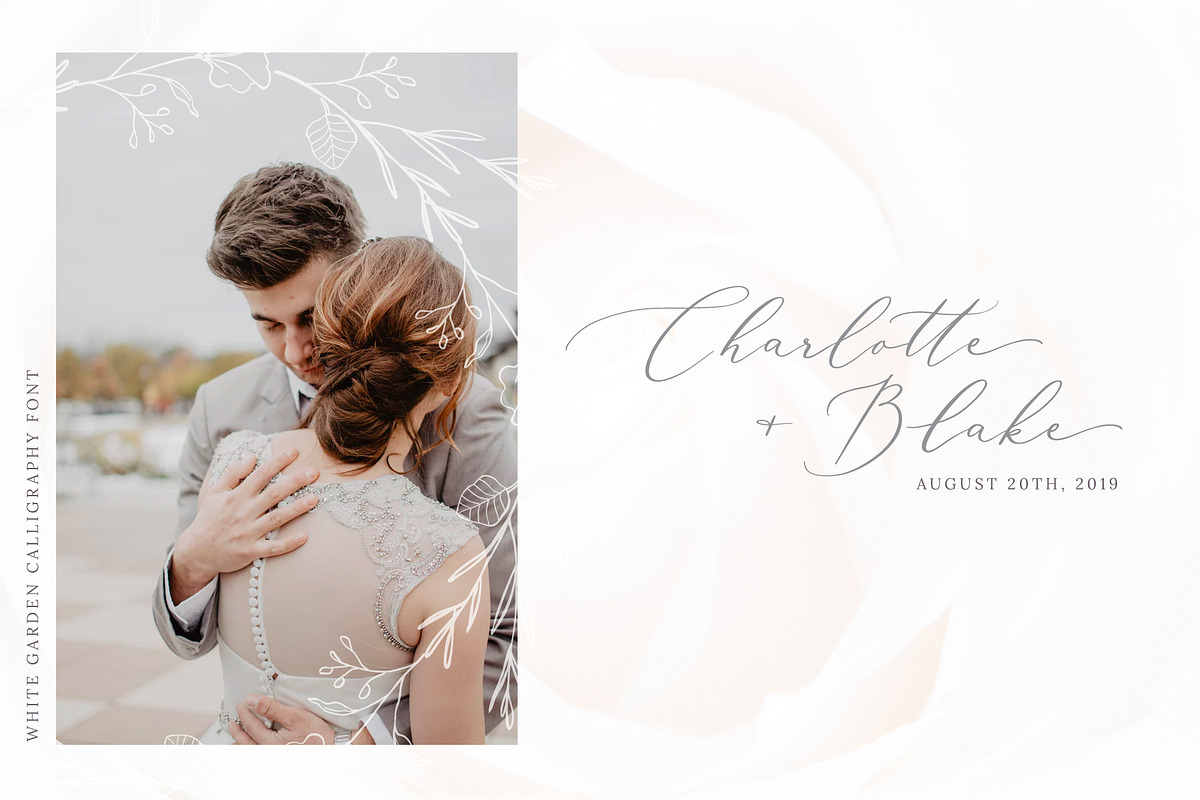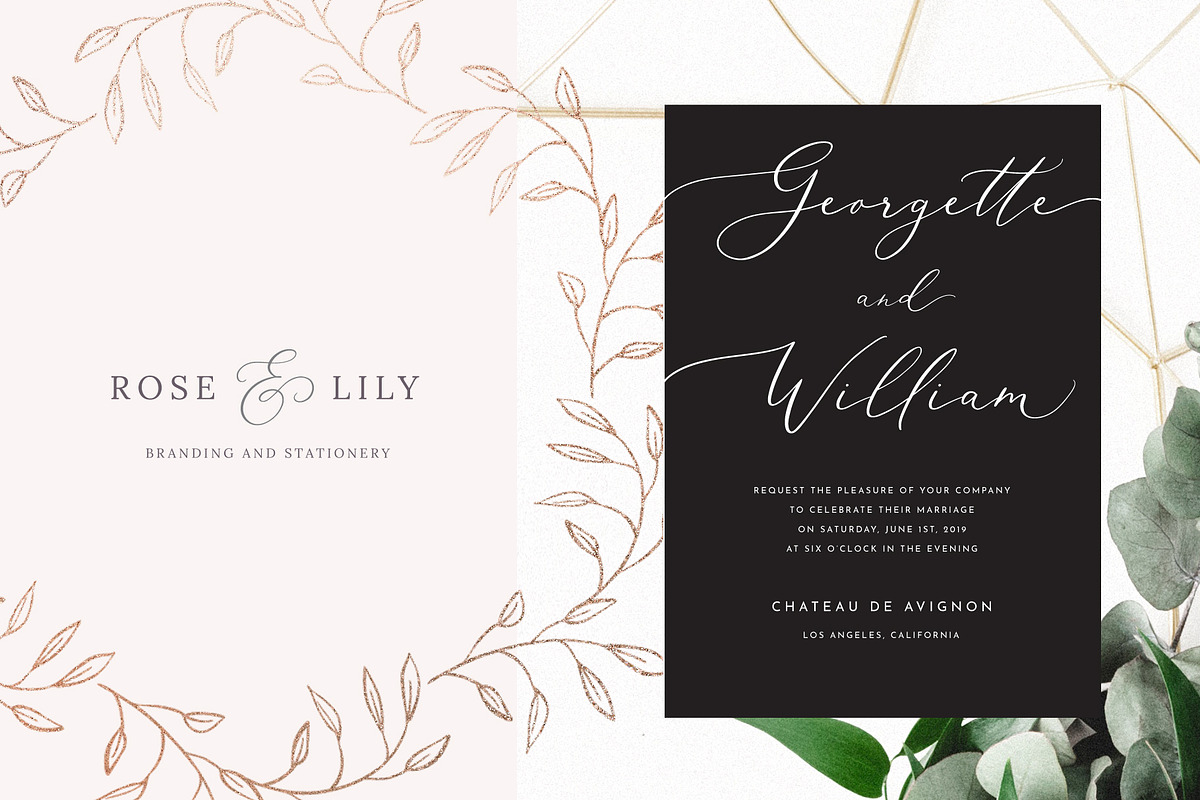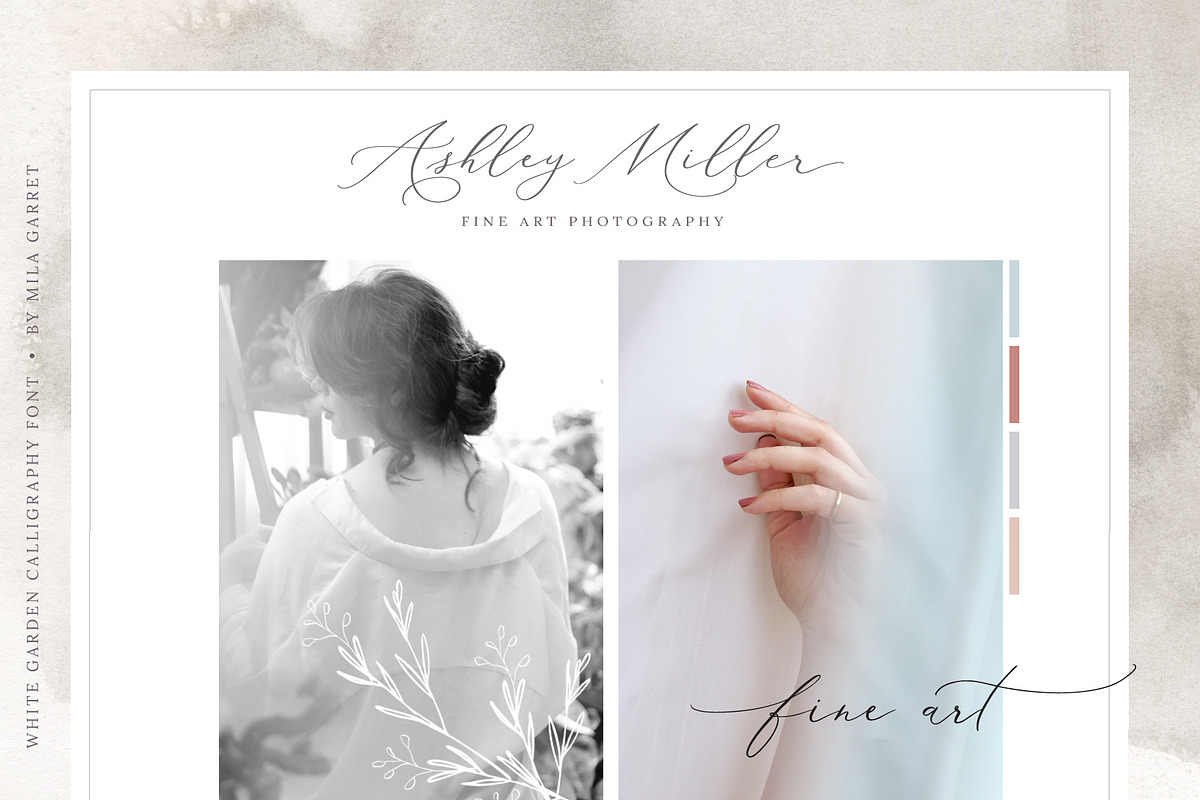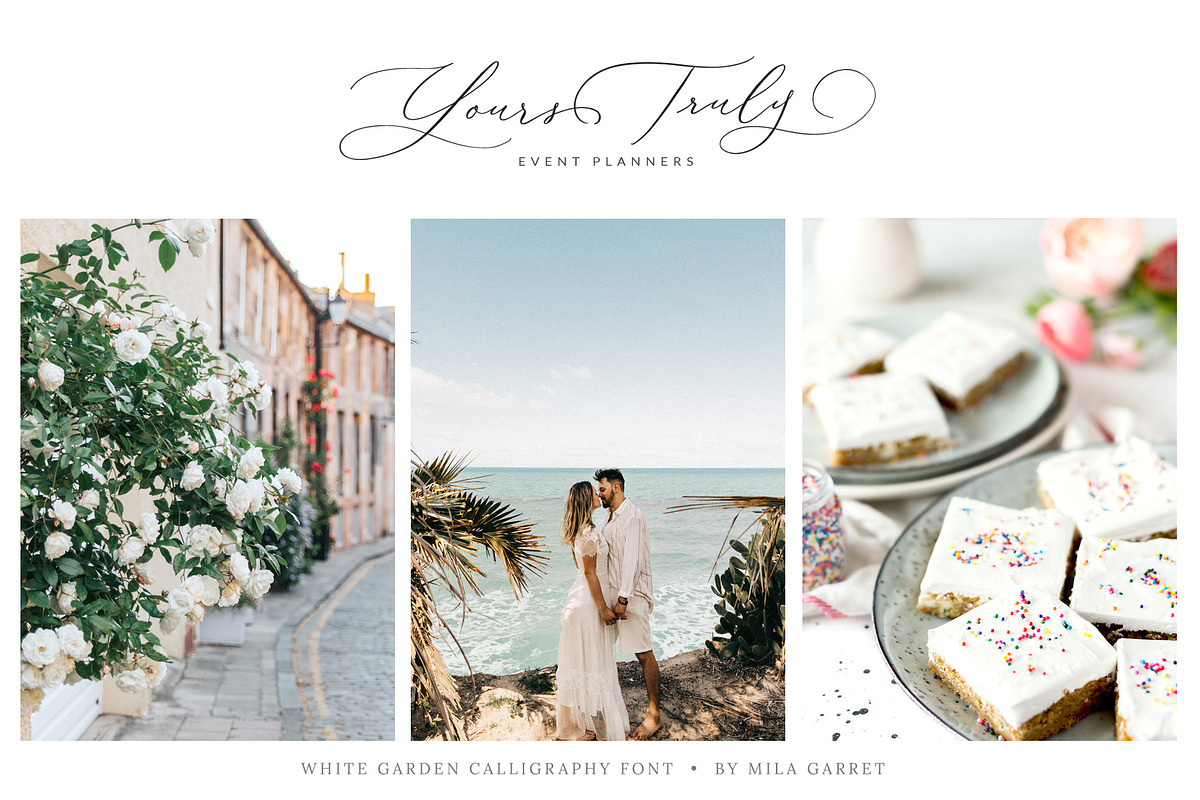
White Garden Font
White Garden is a new beautiful calligraphy font! It is perfect for elegant logos, upscale packaging, wedding stationery, websites, and any other projects requiring a handwritten and luxurious touch.
A wide range of swashes and alternates are included so that you can give your logo or name a custom, hand-calligraphy look.
• Full Set of standard alphabet and punctuation
• Two extra sets of alternate capitals
• Extra set of beginning swashed capitals
• Extra set of beginning swashed lowercase
• Extra set of ending swashed lowercase
• Ligatures and contextual alternates
• Extra stylistic alternates
• Standard and Wide version
• Multilingual Support
White Garden Calligraphy Font